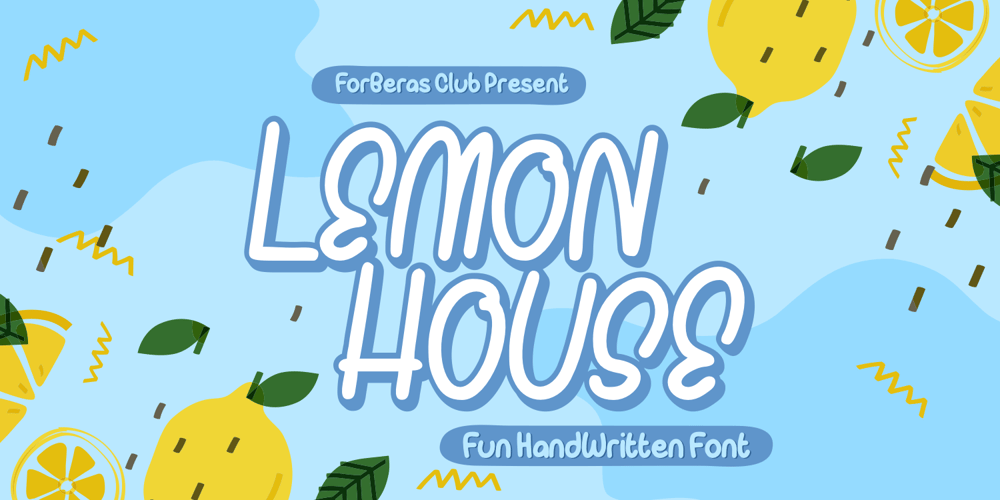
Lemon House Font Family was designed by ANGGI HERMAWAN and published by Forberas Club. Lemon House contains 1 styles and family package options. A fancy and elegant handcrafted font that create to impress your audience and make your branding shine.Make your projects dance with this elegant and wonderful font wherever you use it. Use it for your headings, logos, ads, printed quotes, packaging, and even your website or social media branding.every letter has unique and beautiful touch, which will make your design come alive! This is a smooth font – perfect for cut machines like Cricut and Silhouette!